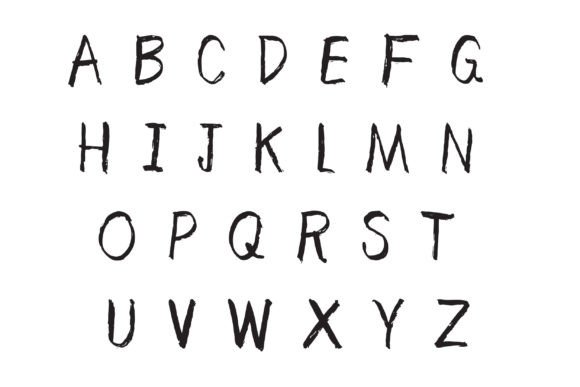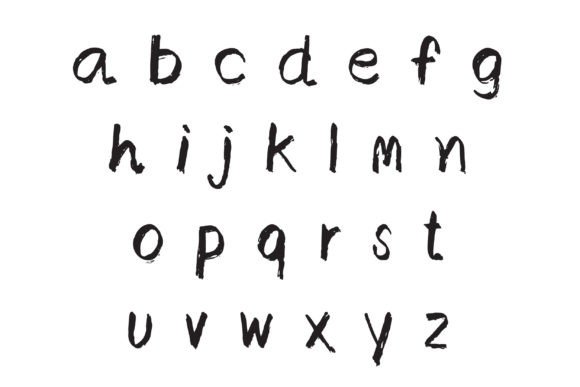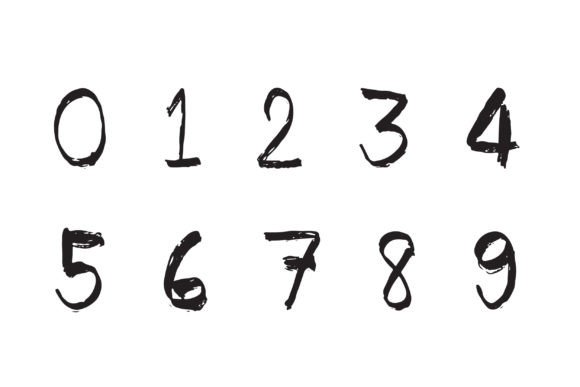
Introduction to Doodii Font
Doodii is a handwritten font.
It is suitable for funny greeting cards, posters, social media, and quotes on products like mugs or shirts .